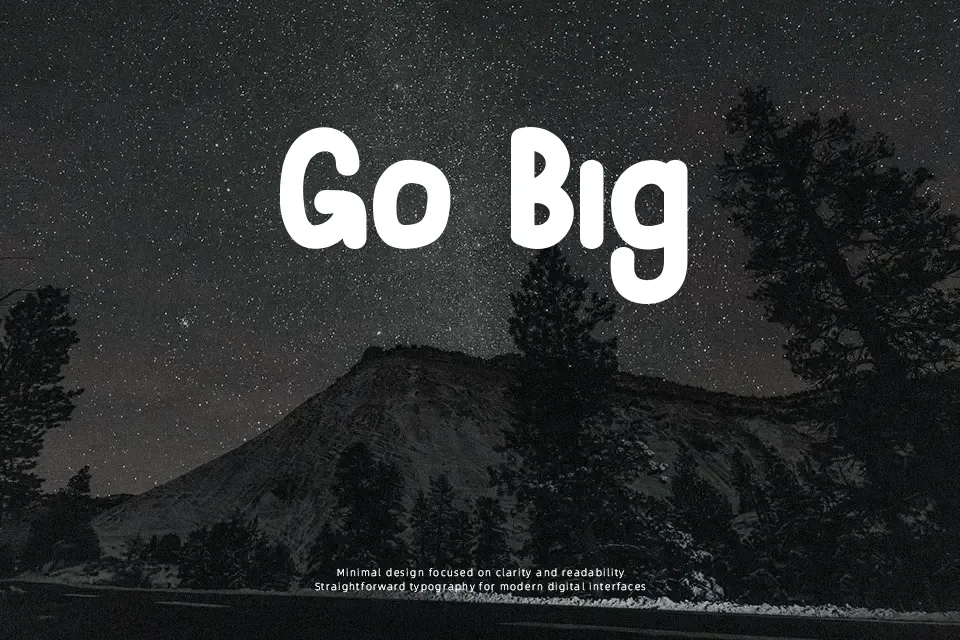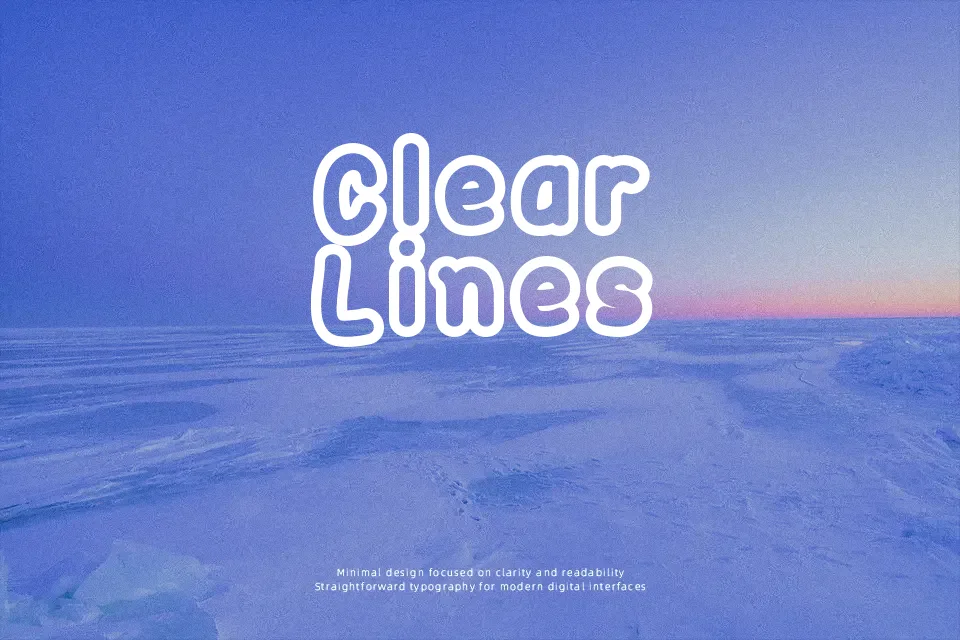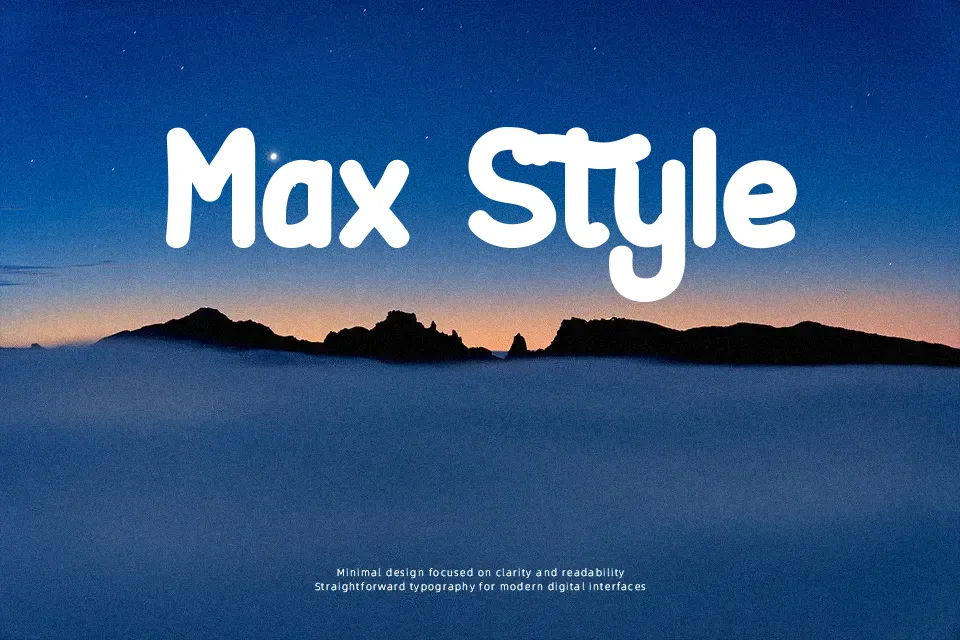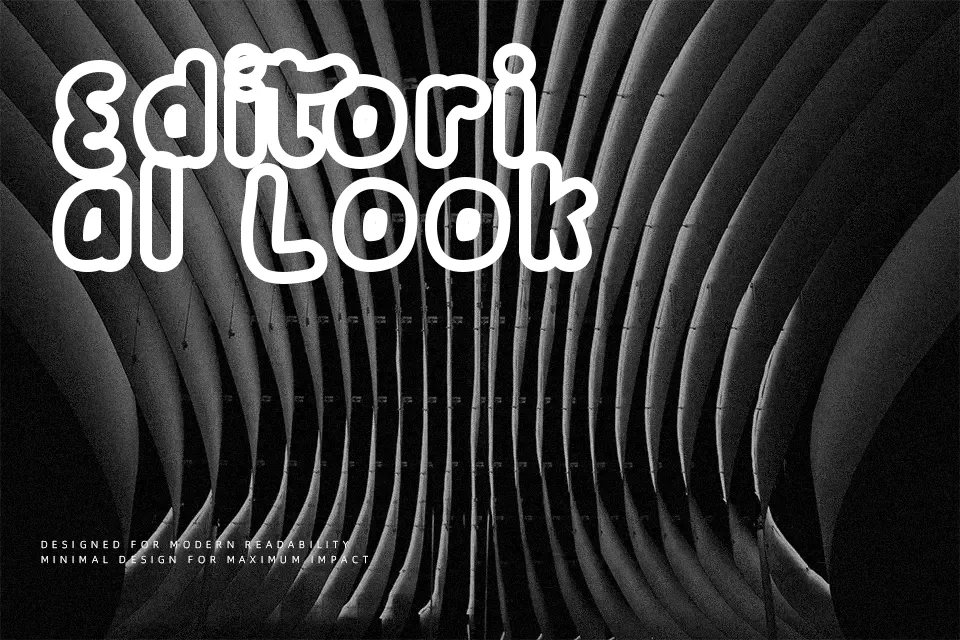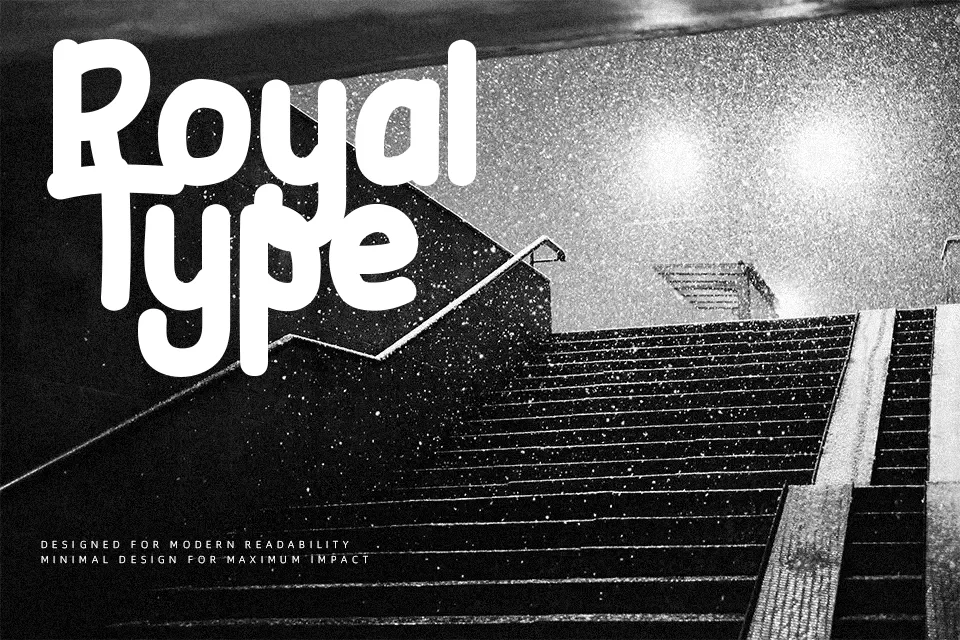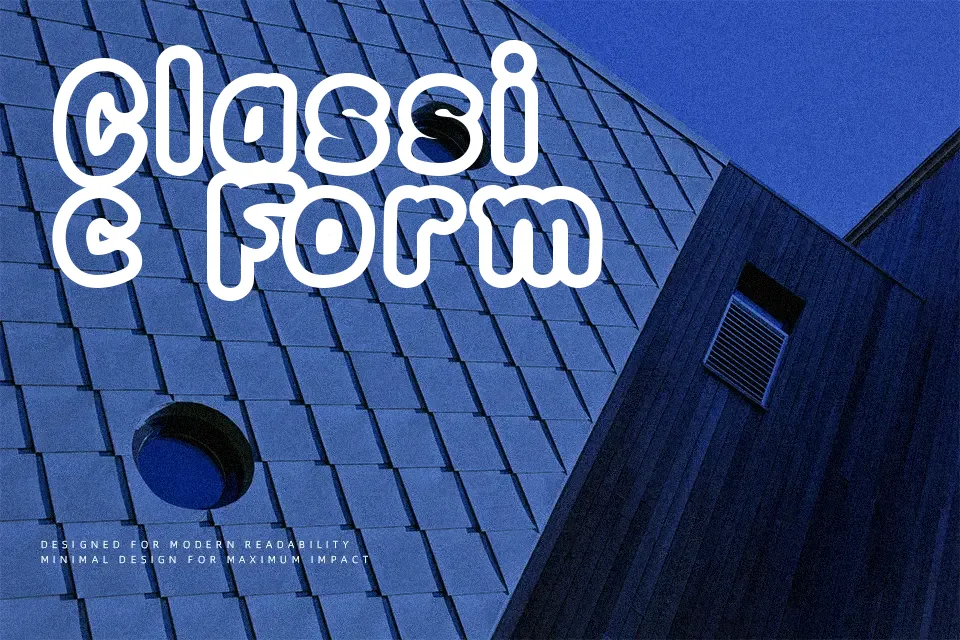
Bubble Lemon Font
Designed by VinType
Bubble Lemon is a fun sans serif display font with plump curves, generous counters, and even spacing that keeps each letter airy rather than cramped. The rounded terminals and thick strokes give it a candy-like, bubbly feel that reads as casual and friendly instead of serious or corporate. It shines on playful packaging, children’s birthday invitations, summer drink menus, and upbeat poster work where you need the typography to carry the mood at a glance. In dense paragraphs or strict corporate identities, the same volume and playfulness can feel overwhelming, so it works best in short headlines and bold wordmarks instead of body text.
kids party invitations and decor
summer drink, lemonade or snack branding
playful headline treatments on posters or flyers
bright social media promos for fun events
long body text or editorial reading
formal corporate or legal branding
minimalist, ultra-clean UI design
serious news or financial content
Perfect for branding, kids, and logo, with a creative and display style.